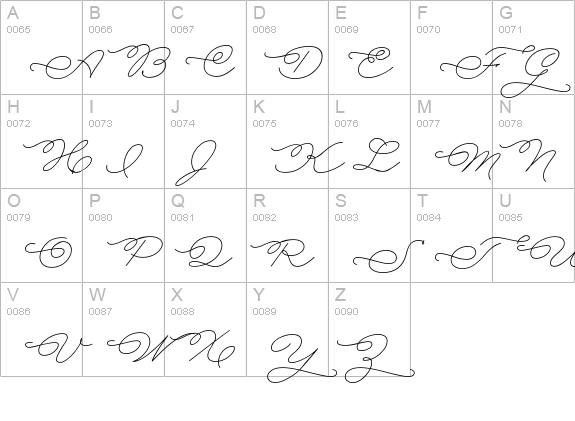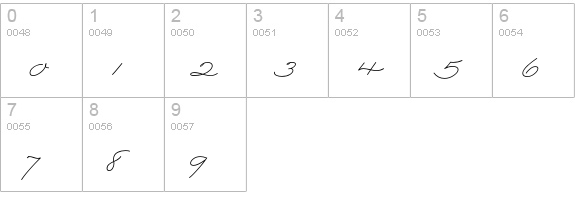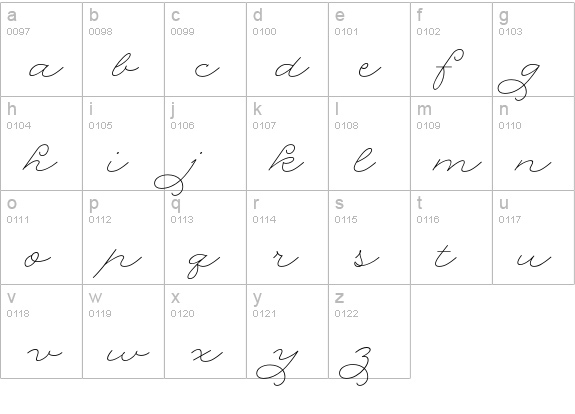
Rolling Pen Curly font is a whimsical and playful typeface that exudes creativity and artistic flair. With its unique curly design, this font adds a touch of fun and charm to any project. Perfect for invitations, posters, and greeting cards, Rolling Pen Curly font is sure to make your text stand out. The best part? Rolling Pen Curly font is completely free to download at FontsMarket.com. Simply head over to the website and start using this delightful font in your designs today. Don't miss out on the opportunity to add a touch of personality to your projects with Rolling Pen Curly font, available for free download now!